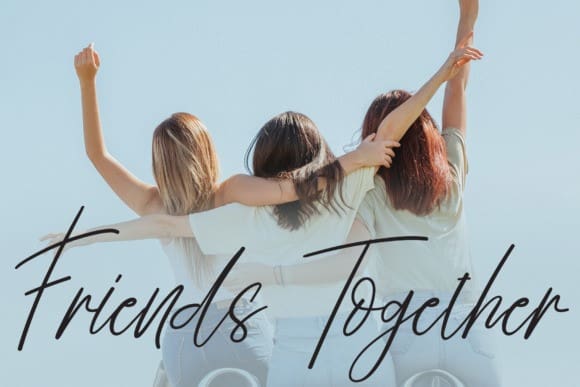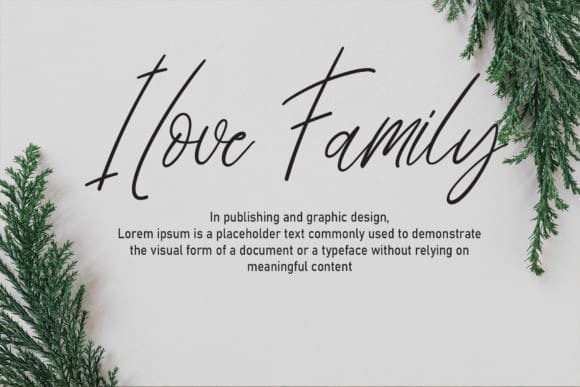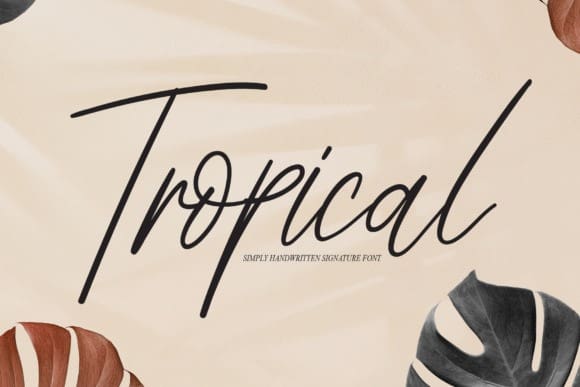
Tropical Handwritten Font
Tropical Handwritten Font is a beautiful handwritten font that has a modern yet whimsical style. It will undoubtedly immerse your designs into a magical world. Use this font for your designs and explore its endless possibilities.